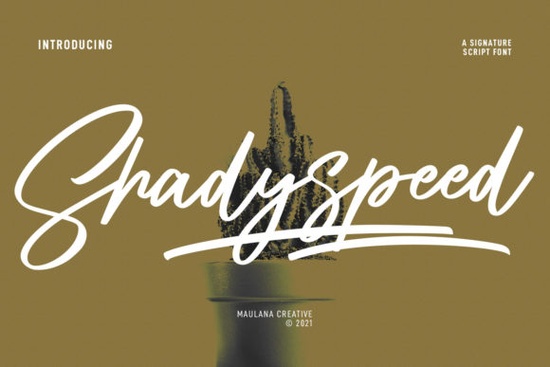
Shadyspeed Script Font is a unique typeface that brings a personal, handcrafted feel to any design project. Its clean strokes and playful characters make it stand out, especially when used in logos, social media posts, or movie titles. The font includes lowercase alternates and swashes, giving designers more flexibility to create custom looks. Whether you're working on a branding project or just looking for a fresh way to present text, Shadyspeed offers a versatile solution.
When choosing a script font, it's important to find one that balances style with readability. Shadyspeed does this well, offering a casual yet professional appearance. Its subtle ligatures add a touch of elegance without overwhelming the design. This makes it ideal for both digital and print projects, from website headers to product packaging. For those who want to add a personal touch to their work, Shadyspeed is an excellent choice.
What Makes Shadyspeed Stand Out?
Unlike many script fonts that can be difficult to read at smaller sizes, Shadyspeed maintains clarity while still delivering a handwritten aesthetic. The font’s design allows it to work well in a variety of contexts, from headlines to body text. Its two-file structure lowercase alternates and swashes gives users more control over how their text looks. This level of customization is especially useful for designers who want to create unique visual identities.
One of the key features of Shadyspeed is its fun character. The font doesn’t take itself too seriously, which makes it perfect for creative projects that need a bit of personality. Whether you're designing a logo for a new business or adding flair to a social media post, Shadyspeed can help you express your style in a distinctive way.
Best Uses for Shadyspeed Script Font
Shadyspeed is particularly well-suited for logo design. Its clean lines and playful elements make it easy to adapt to different brand styles. For small businesses or entrepreneurs, this font can help create a memorable visual identity. It also works well for movie and book titles, where a strong, readable font is essential. The font’s versatility means it can be used across multiple platforms and formats.
For print-on-demand sellers, Shadyspeed offers a way to stand out in a competitive market. Its unique look can make products more appealing to customers looking for something different. Crafters and hobbyists may also find value in using this font for handmade items, such as greeting cards or custom signs. The font’s ease of use and attractive design make it a valuable addition to any creative toolkit.
For those new to script fonts, it’s helpful to understand how they can enhance a design. Shadyspeed provides a balance between creativity and functionality, making it a great starting point for anyone looking to experiment with typography. As you become more familiar with script fonts, you may find yourself using them in more advanced ways, such as combining them with other typefaces or incorporating them into larger design systems.
By taking the time to explore and test Shadyspeed Script Font, you can ensure it meets your specific needs. Whether you're a designer, crafter, or small business owner, this font offers a flexible and stylish solution for a wide range of projects.